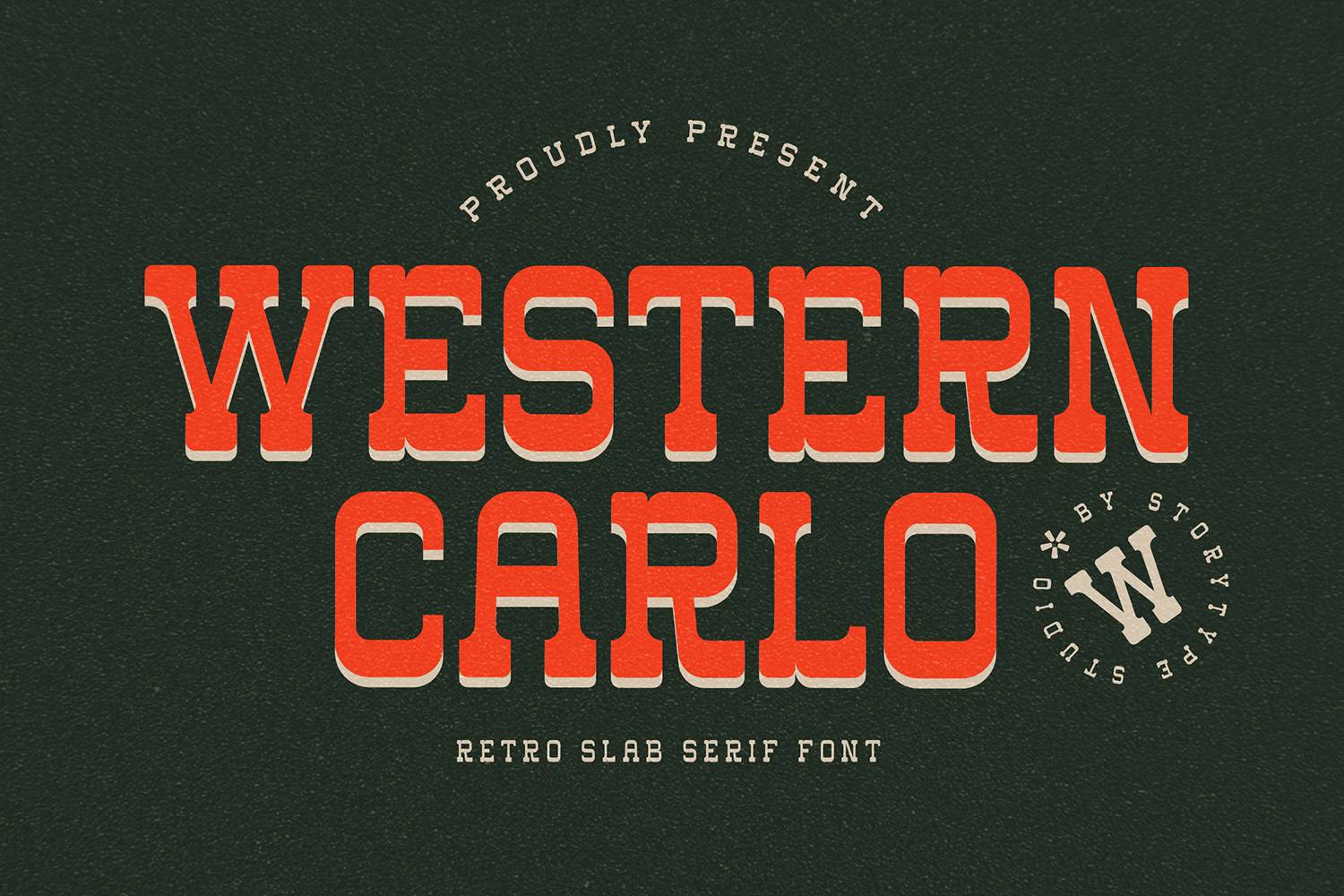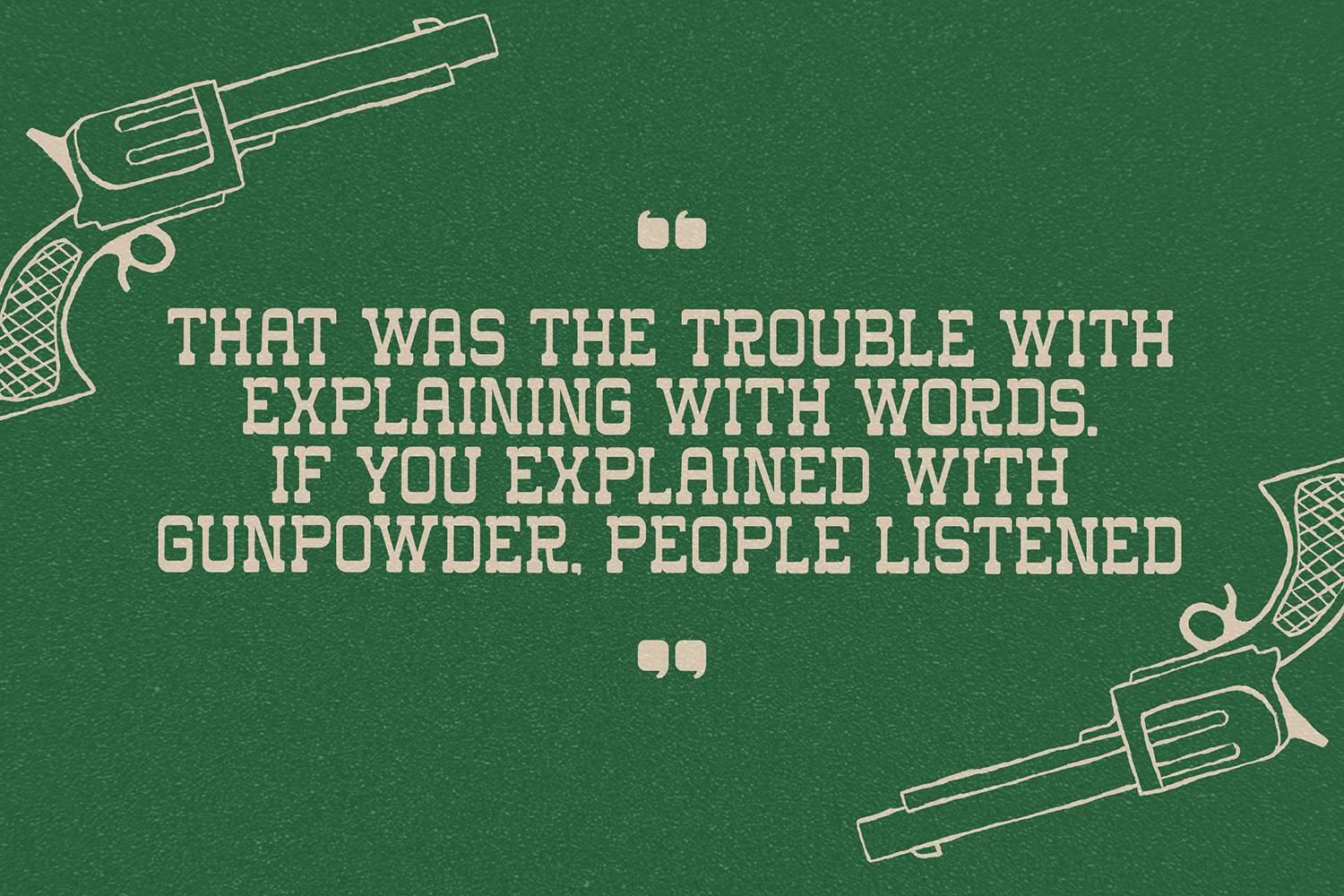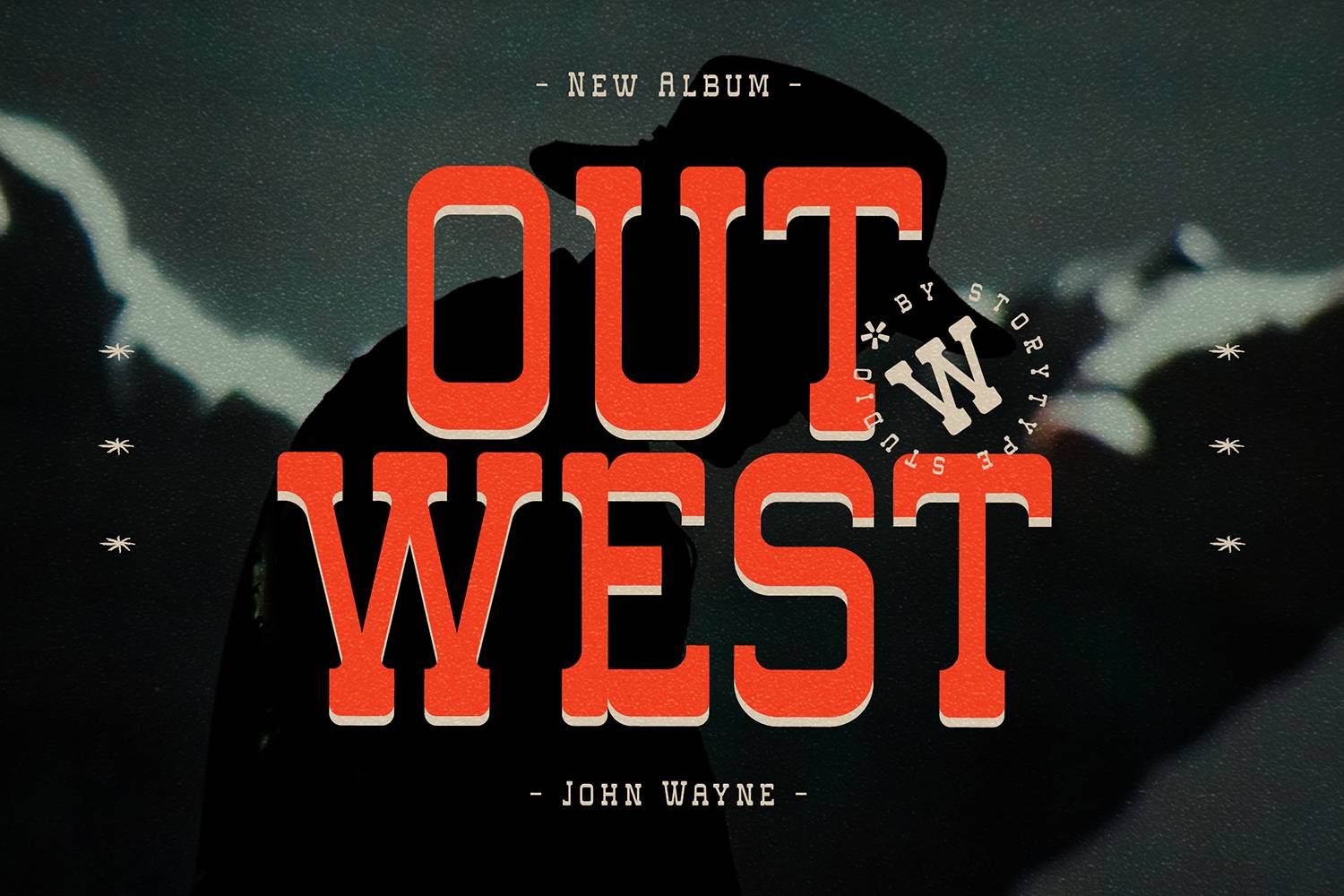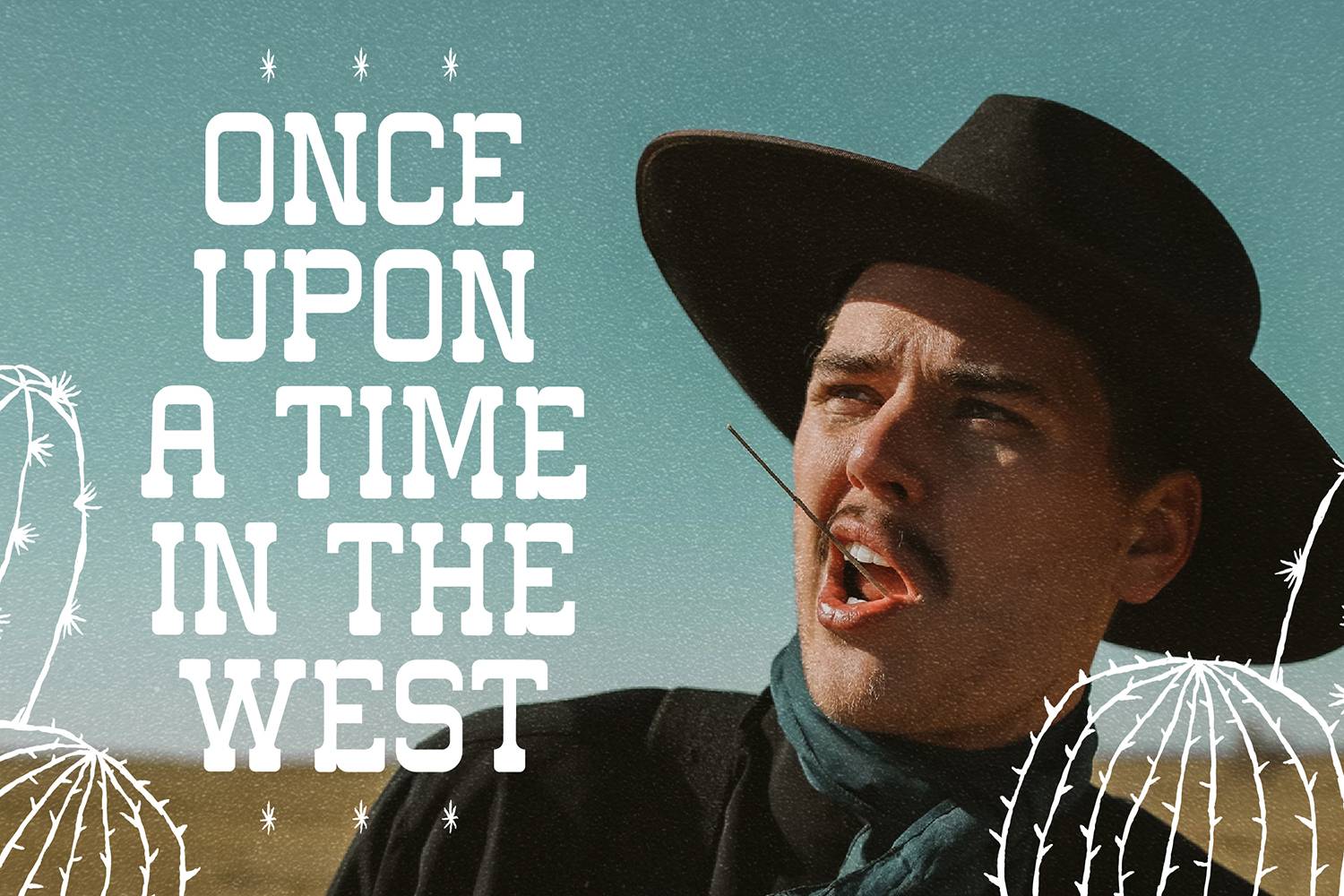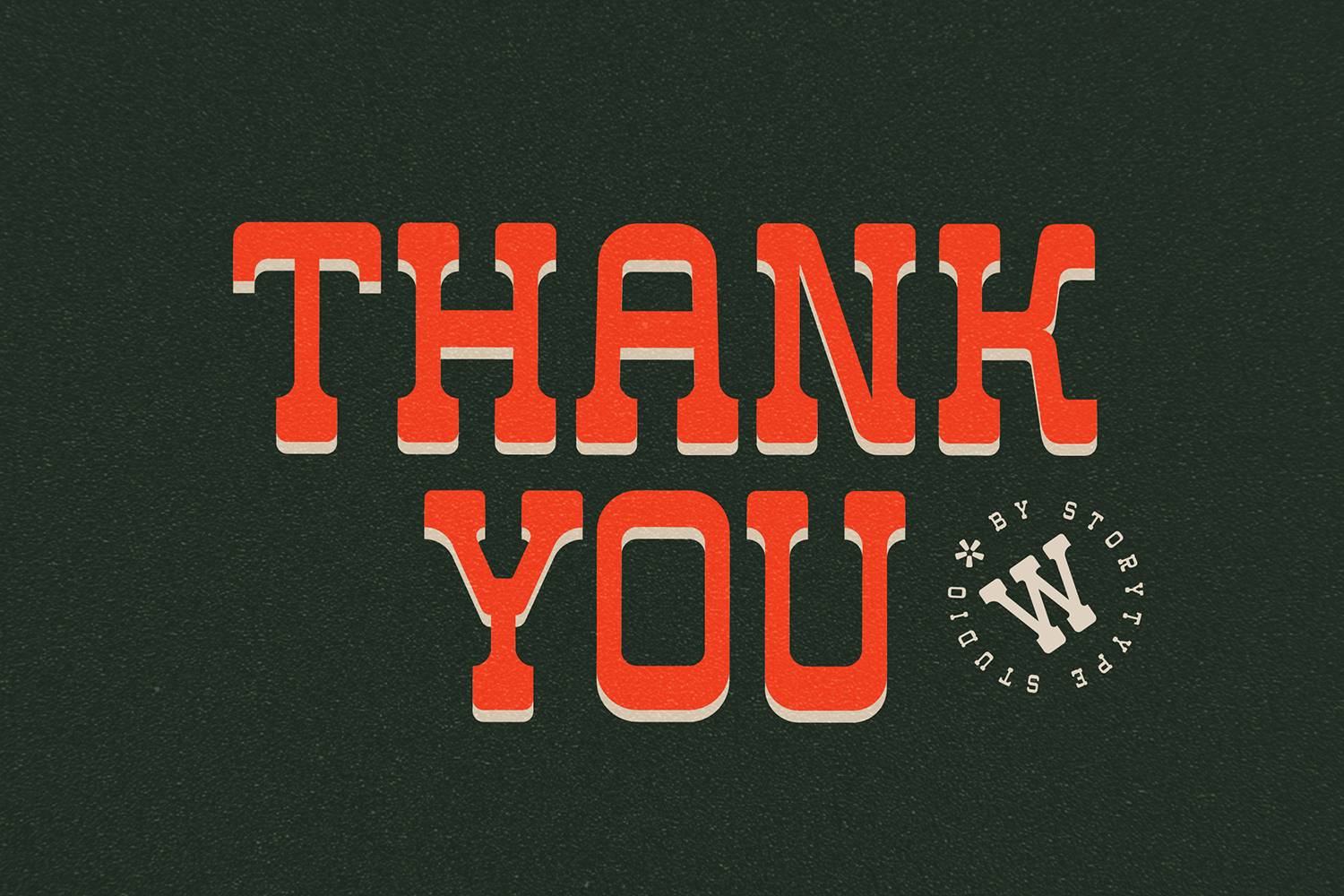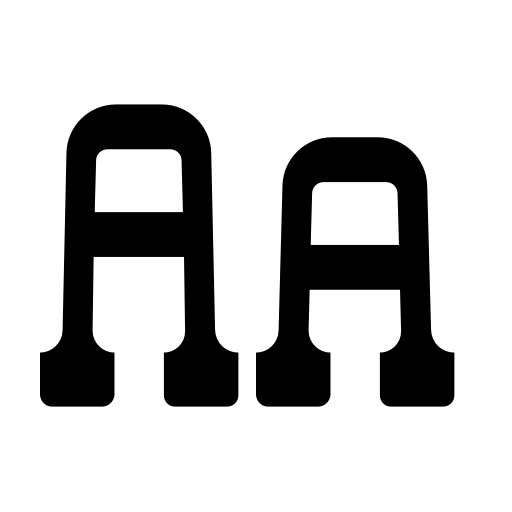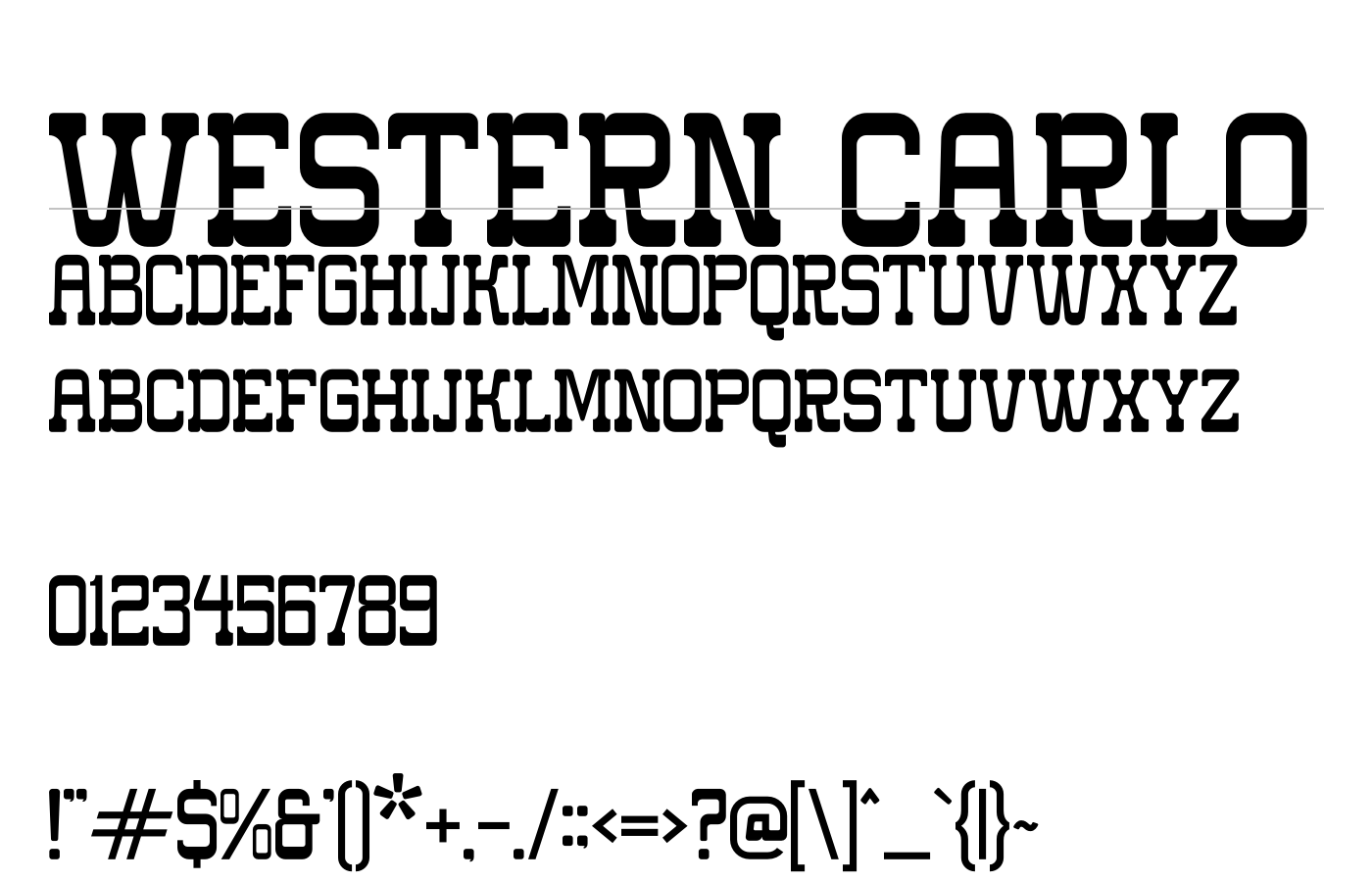
Western Carlo is a bold, slab serif typeface with a distinct Western-inspired style, featuring strong, blocky serifs and a slightly condensed width that adds a vintage yet sturdy feel. Its tall x-height and moderate stroke contrast create a balanced look perfect for eye-catching headlines and branding that needs a rugged, nostalgic character, making it ideal for Western-themed designs, posters, and logos.
Western Carlo Font
About Western Carlo Font